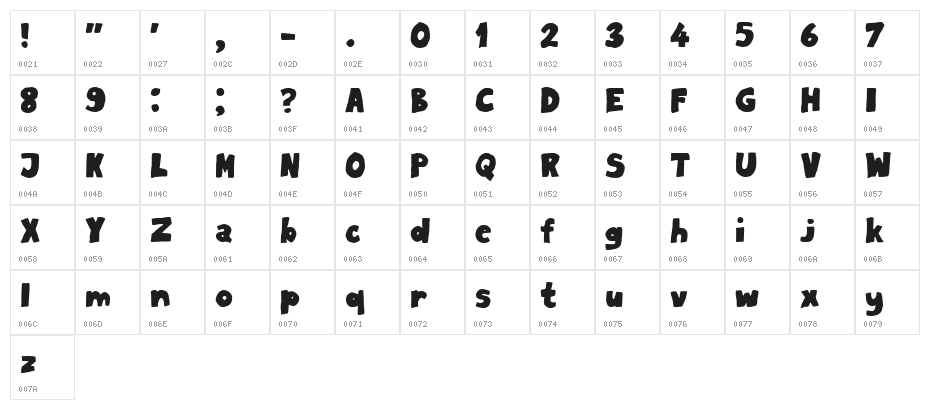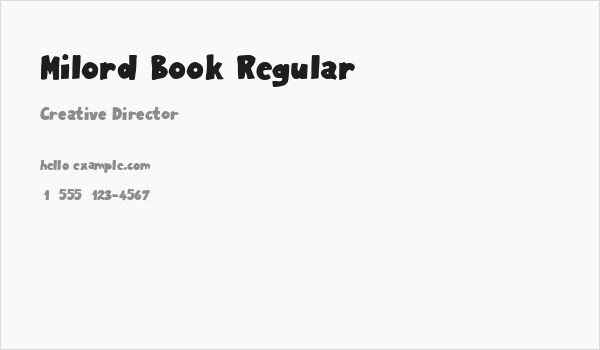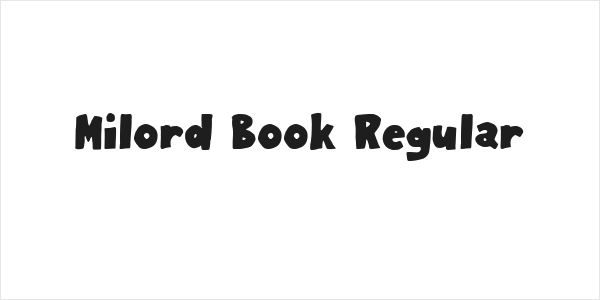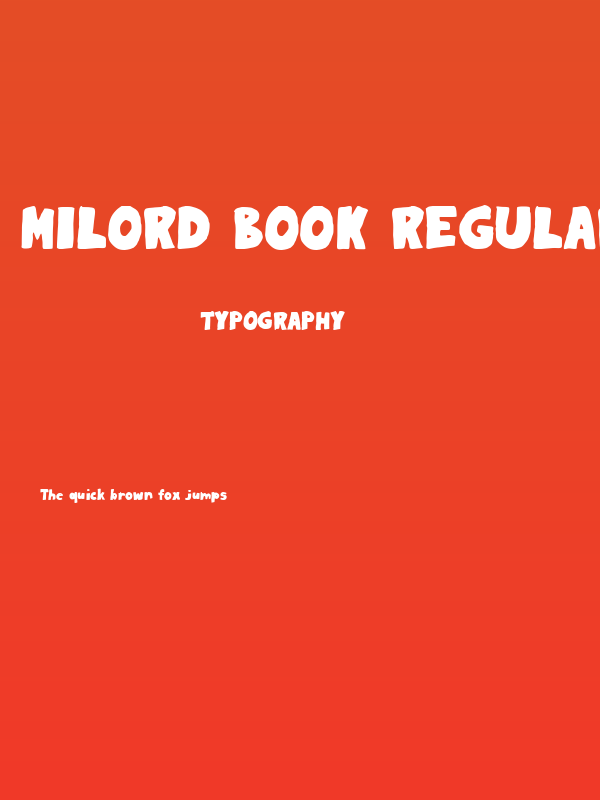
Milord Book Regular Font
Milord Book Regular Description
This font showcases a bold and playful style with a hand-drawn appearance. The letters are thick and rounded, giving a friendly and approachable feel. The uppercase and lowercase characters maintain a consistent weight, contributing to a cohesive look. The numbers and special characters follow the same design principles, ensuring uniformity across all elements. The font's organic shapes and slightly irregular edges add a touch of whimsy, making it suitable for creative and informal projects. Its distinctive style is eye-catching and memorable, making it ideal for designs that require a strong visual impact.
| Proposed Projects | Ideal for children's books, playful branding, posters, and creative invitations. |